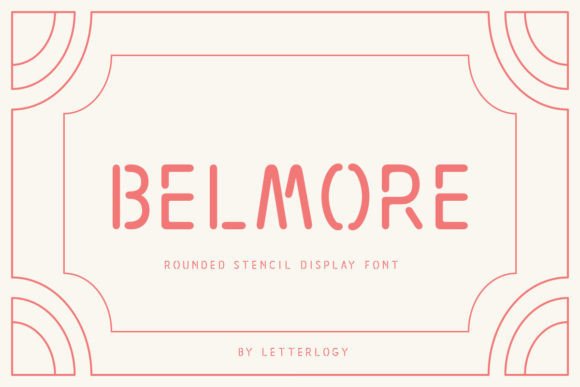
Are you tired of using the same old boring fonts for your designs? Look no further! Introducing Belmore, the ultimate font for web design. Created by letterlogy, this display font will take your designs to the next level with its rounded and modern stencil style.
Belmore is more than just a font. It is a true masterpiece that combines personality and readability into one wholesome package. Its unique form captures attention and instantly makes your designs stand out from the crowd. Whether you're designing a title, a brand name, or physical displays, Belmore is the perfect choice.
With Belmore, your designs will evoke a sense of modernity and sophistication. Its rounded edges add a touch of elegance, while the stencil design gives it a contemporary and edgy feel. This font is versatile and can be used in a variety of design projects, making it a must-have for any web designer.
Not only does Belmore look visually stunning, but it also delivers on functionality. The font is optimized for web use, ensuring that your website will load quickly and seamlessly. Say goodbye to slow-loading fonts that hinder user experience. Belmore allows your users to have a smooth browsing experience, keeping them engaged and captivated.
But why choose Belmore over other fonts? The answer is simple. Belmore is more than just a font; it's a statement. It speaks volumes about your brand's creativity and attention to detail. It showcases your commitment to delivering a visually stunning experience to your audience.
When it comes to marketing your products or services online, first impressions matter. Belmore helps you make that unforgettable first impression. Its captivating and eye-catching design will draw users in and keep them coming back for more.